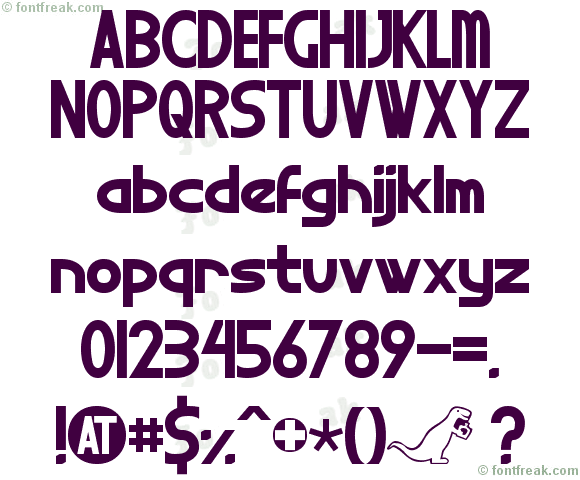
Kitchener
The Kitchener font by Caffeen is a stylish sans-serif typeface that combines contemporary design with a touch of elegance. Its unique visual characteristics include a balanced stroke weight and moderate contrast, allowing for easy readability while maintaining a chic aesthetic. The clean lines and open spacing contribute to its versatility, making it a fantastic choice for various applications.
Kitchener is particularly well-suited for wedding invitations, where its sophisticated yet approachable style can set the perfect tone for a special day. It also shines in restaurant menus, offering a modern flair that can enhance the dining experience. Graphic designers will appreciate its adaptability for branding projects, while content creators can use it for eye-catching social media graphics or blog headers. Additionally, this font can elevate movie posters by adding a contemporary edge that captures attention.
Targeted towards graphic designers, small business owners, and content creators, Kitchener caters to anyone looking to make a lasting impression through their visual communications. The font's balance between modernity and warmth makes it an excellent choice for those wanting to convey a sense of style without sacrificing clarity.
What sets the Kitchener font apart is its ability to blend functionality with aesthetic appeal. Its clean lines and thoughtful design make it an ideal choice for both professional and personal projects. With a Kitchener font free download available, you can easily incorporate this elegant typeface into your next creative endeavor, ensuring your designs stand out while maintaining a polished look. Whether you're crafting promotional materials or personal invitations, Kitchener offers the versatility and style needed to elevate every project.